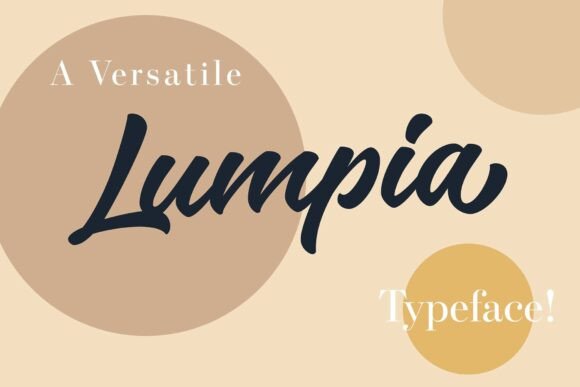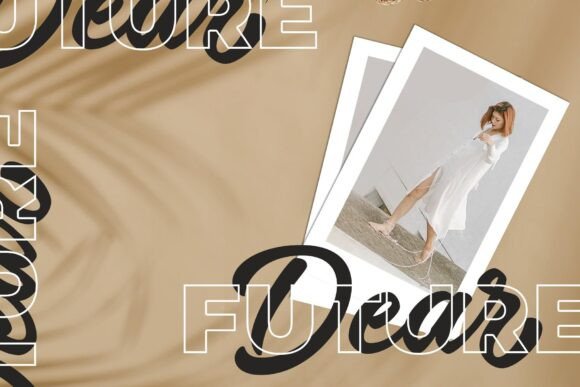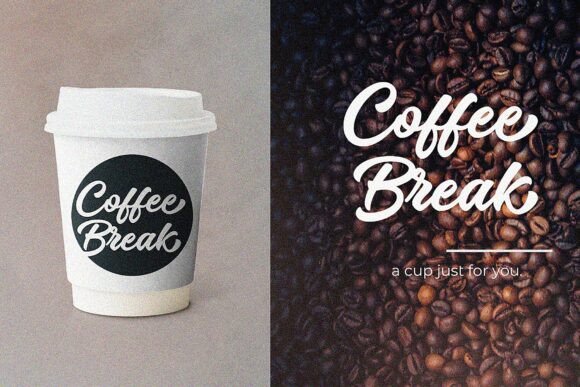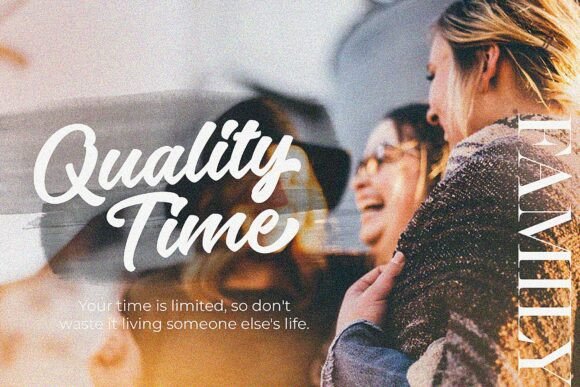
Lumpia Font
About the Lumpia Font
Introducing the Lumpia Font, a beautifully crafted typeface designed to elevate your creative projects. Lumpia Brush is a hand-lettering brush script font with natural nuance. This font is great for any creative project such as logos, printed quotes, invitations, cards, product packaging, headers, Logotype, Letterhead, Poster, Apparel Design, Label, and more. Lumpia Brush comes with uppercase, lowercase, numerals, punctuations, multilingual and alternative glyphs on each character and has with OpenType features, common ligatures and also additional swash. They will help your creativity to customize your designs.